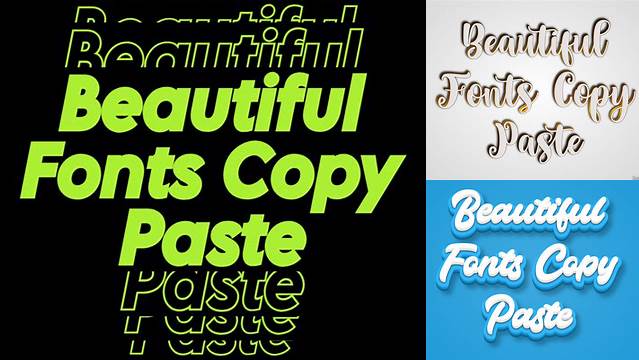
Beautiful Fonts Generator: Copy & Paste Stylish Text
Hey guys! Ever stumbled upon some seriously cool text online and thought, "Wow, I wish I could type like that?" Well, you're in luck! We're diving deep into the world of beautiful fonts generator copy and paste, and trust me, it's way easier than it sounds. Forget downloading a million fonts or wrestling with complicated software. This is all about quick, easy, and totally awesome text transformations right at your fingertips. Let's get started!
What are Beautiful Font Generators?
Okay, so what exactly are these beautiful font generators we're talking about? Simply put, they're online tools that let you convert regular text into a variety of stylish and unique fonts. These aren't your typical Arial or Times New Roman – we're talking fancy scripts, bold and blocky letters, quirky handwritten styles, and so much more. The magic happens behind the scenes, where these generators use special Unicode characters to create these eye-catching text styles. What's Unicode, you ask? It's a universal character encoding standard that allows computers to represent text from virtually any writing system. So, while it looks like you're using a completely different font, you're actually using a clever combination of Unicode characters that mimic different font styles. This is why you can copy and paste these generated fonts across various platforms and devices without any compatibility issues. Think of it as a secret code that everyone can read! These generators are incredibly versatile. You can use them to spice up your social media posts, add flair to your captions, create attention-grabbing headlines, or even design unique invitations or cards. The possibilities are endless! And the best part? Most of these generators are completely free to use. No downloads, no installations, just pure font-tastic fun. So, if you're looking to add a touch of personality and pizzazz to your text, a beautiful font generator is your new best friend. They empower you to express yourself creatively and stand out from the crowd, all with a simple copy and paste.
Why Use a Font Generator?
You might be thinking, "Why bother with a font generator when I can just choose from the fonts available on my computer or phone?" That's a fair question! But the truth is, font generators offer a whole heap of advantages, especially when it comes to creating attention-grabbing content online. Let's break down the key benefits of using a font generator. First off, variety is the spice of life, and font generators deliver that in spades. You're not limited to the standard fonts that come pre-installed on your device. Instead, you have access to a massive range of styles, from elegant calligraphy to futuristic glitch effects. This allows you to truly customize your text and match it perfectly to your message and brand. Imagine trying to achieve a playful, whimsical look with Times New Roman – it's just not going to happen! But with a font generator, you can easily find a font that captures that exact vibe. Another major advantage is compatibility. As we discussed earlier, font generators use Unicode characters, which means your fancy text will display correctly on virtually any device or platform. This is crucial for ensuring your message looks the way you intended, no matter where it's being viewed. There's nothing worse than spending time crafting the perfect message, only to have it appear as a jumbled mess of boxes and question marks on someone else's screen. Font generators eliminate that risk. Furthermore, these generators are incredibly easy to use. There's no need to be a design expert or download any software. Simply type your text, choose a font style, and copy and paste the result. It's that simple! This makes them accessible to everyone, regardless of their technical skills. Font generators are also a fantastic way to stand out on social media. In a sea of ordinary text, a unique font can instantly grab attention and make your posts more engaging. Whether you're promoting your business, sharing a personal update, or just trying to be creative, a font generator can help you make a lasting impression. Finally, they're free and convenient. Most font generators are available online and don't require any registration or payment. You can use them anytime, anywhere, without any hassle. So, if you're looking for a quick, easy, and effective way to enhance your text, a font generator is definitely worth checking out. They offer a world of creative possibilities at your fingertips.
How to Use a Beautiful Font Generator (Step-by-Step)
Alright, so you're convinced that a beautiful font generator is your new secret weapon for awesome text. But how do you actually use one? Don't worry, it's super simple! Let's walk through the process step-by-step. First, you'll need to find a font generator. There are tons of options available online, so a quick Google search for "font generator" or "fancy text generator" will give you plenty of choices. Some popular options include LingoJam, Cool Fonts, and FontCopy, but feel free to explore and find one that you like. Once you've chosen a generator, navigate to the website. Most font generators have a very straightforward interface, so you shouldn't have any trouble finding your way around. The next step is to enter your text. Look for a text box or input field, and simply type the message you want to transform. This could be anything from a single word to a whole paragraph, depending on the generator and your needs. Now comes the fun part: choosing your font style! Most generators will display a list of available fonts below or alongside the text box. Scroll through the options and click on the font you want to use. You'll typically see a preview of your text in the selected font, so you can easily see how it looks. Some generators offer additional customization options, such as font size, color, or special effects. If you want to further personalize your text, explore these options. Once you're happy with your font style, it's time to copy the generated text. Most generators have a button or link that says something like "Copy," "Copy Text," or "Copy to Clipboard." Click this button to copy the transformed text to your device's clipboard. Finally, paste your text wherever you want to use it! This could be in a social media post, a document, an email, or anywhere else that accepts text input. Simply right-click and select "Paste" or use the keyboard shortcut Ctrl+V (or Command+V on a Mac). And that's it! You've successfully used a beautiful font generator to create stylish and unique text. The process is the same for most generators, so once you've done it once, you'll be a pro. Now go forth and create some amazing text!
Where to Use Your Fancy Fonts
Okay, you've got your font generator skills down, and you're churning out gorgeous text left and right. But where can you actually use these fancy fonts? The possibilities are surprisingly vast! Let's explore some of the most popular places to use your generated fonts and add a touch of flair to your online presence. First and foremost, social media is a fantastic playground for fancy fonts. Use them to spice up your Instagram captions, create attention-grabbing Facebook posts, or add a unique touch to your Twitter bio. A well-chosen font can help you stand out from the crowd and make your content more engaging. Think about using a bold and playful font for a fun announcement, or an elegant script for a heartfelt message. The key is to choose a font that matches the tone and style of your post. Messaging apps are another great place to use your generated fonts. Imagine surprising your friends with a message written in a quirky, handwritten font, or adding emphasis to an important message with a bold and impactful style. It's a simple way to add a personal touch to your conversations and make them more expressive. You can also use fancy fonts in your email communications. A well-designed email signature can leave a lasting impression, and a unique font can help you stand out in a crowded inbox. Just be sure to use fonts sparingly and avoid overly elaborate styles that might be difficult to read. Online forums and communities are another place where you can use font generators to express yourself. A stylish username or a well-crafted post can help you make a statement and connect with other members. However, it's important to be mindful of the community's guidelines and avoid using fonts that might be disruptive or difficult to read. Beyond the digital realm, you can also use generated fonts for creative projects like invitations, cards, or even t-shirt designs. Simply copy and paste the generated text into your design software or online printing service. The possibilities are truly endless! So, whether you're looking to boost your social media presence, add a personal touch to your messages, or create stunning designs, fancy fonts can help you achieve your goals. Just remember to use them thoughtfully and choose styles that are both visually appealing and easy to read.
Tips for Using Font Generators Effectively
Now that you're a font generator whiz, let's talk about using them effectively. Just because you can use a million different fonts doesn't mean you should! Here are some tips and tricks to help you make the most of these awesome tools and avoid any font faux pas. First and foremost, legibility is key. While it's tempting to go wild with the most elaborate and ornate fonts, remember that your primary goal is to communicate your message clearly. If your text is too difficult to read, people will simply scroll past it. Choose fonts that are stylish but still easy on the eyes. This is especially important for longer pieces of text, such as captions or paragraphs. Another important tip is to use fonts sparingly. A little goes a long way! Overusing fancy fonts can make your content look cluttered and overwhelming. Instead, try using them strategically to highlight key words or phrases, or to add a touch of personality to your headings. Think of fancy fonts as accents – they should complement your regular text, not compete with it. Consider your audience and the platform. What works on Instagram might not work on LinkedIn. Different platforms and audiences have different expectations when it comes to font styles. For example, a playful, handwritten font might be perfect for a personal Instagram post, but it might not be appropriate for a professional email. Be mindful of the context and choose fonts that are appropriate for the situation. Match the font to your message. The font you choose should reflect the tone and style of your message. A formal announcement might call for an elegant serif font, while a casual update might be better suited to a sans-serif or script font. Think about the emotions you want to evoke and choose a font that helps you achieve that. Test your fonts. Before you post or send anything, take a moment to preview your text on different devices and platforms. This will help you ensure that your fonts are displaying correctly and that your message is legible. It's also a good idea to ask a friend or colleague for their feedback. Finally, have fun and experiment! Font generators are a fantastic way to express your creativity, so don't be afraid to try new things and explore different styles. With a little practice, you'll develop a keen eye for choosing the perfect font for any occasion. So go out there and make some font-tastic content!
Beautiful Fonts Generator: Copy and Paste - The Conclusion
So, there you have it, guys! We've explored the wonderful world of beautiful fonts generator copy and paste, and hopefully, you're feeling inspired to unleash your inner font artist. These tools are seriously game-changers for anyone looking to add a touch of personality and flair to their text, whether it's for social media, messaging, or even creative projects. Remember, the key is to have fun, experiment, and choose fonts that truly reflect your message and style. And don't forget the golden rule: legibility is always paramount! With a little practice, you'll be crafting stunning text that grabs attention and makes a lasting impression. So go ahead, dive in, and start exploring the endless possibilities of fancy fonts. Happy generating!